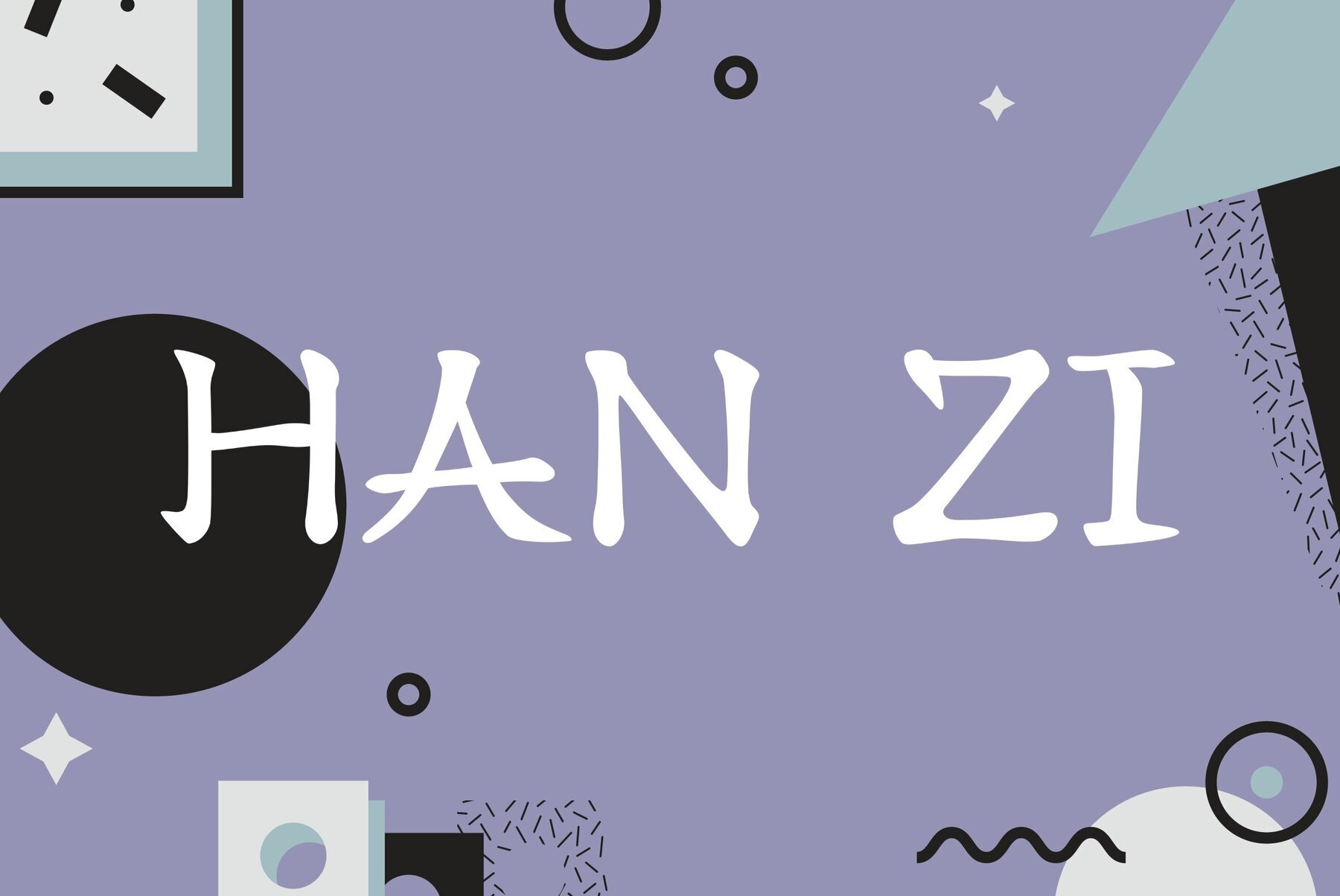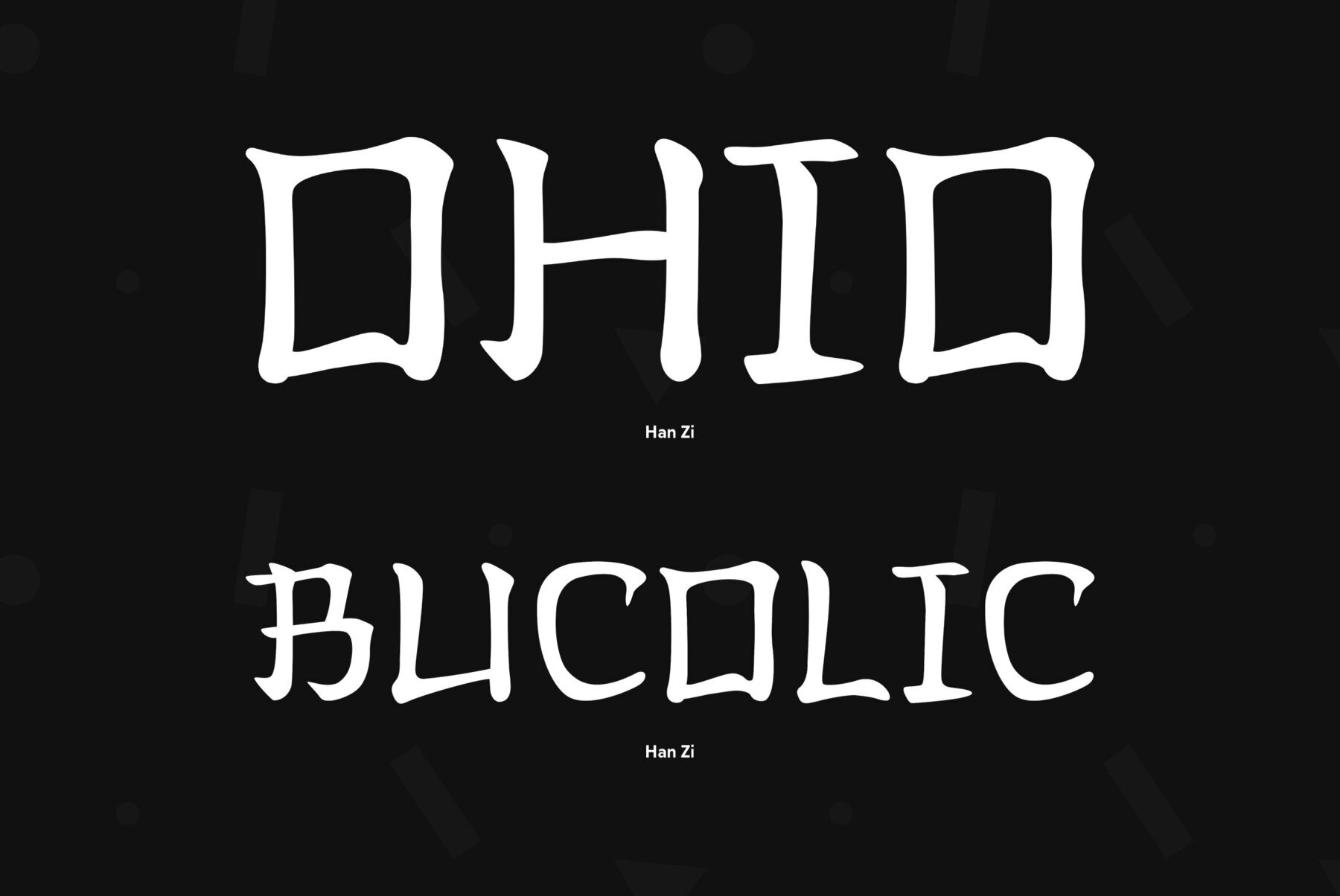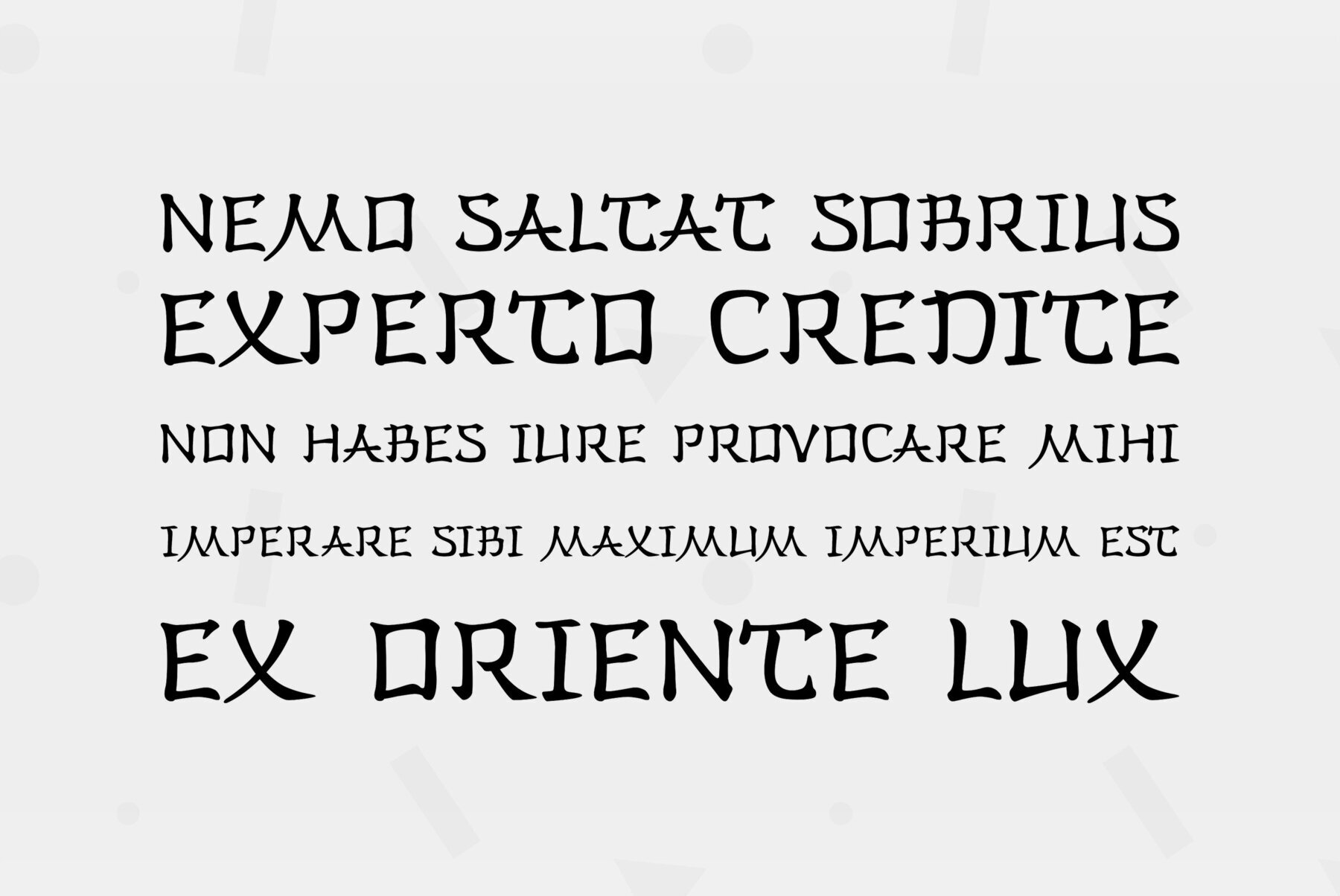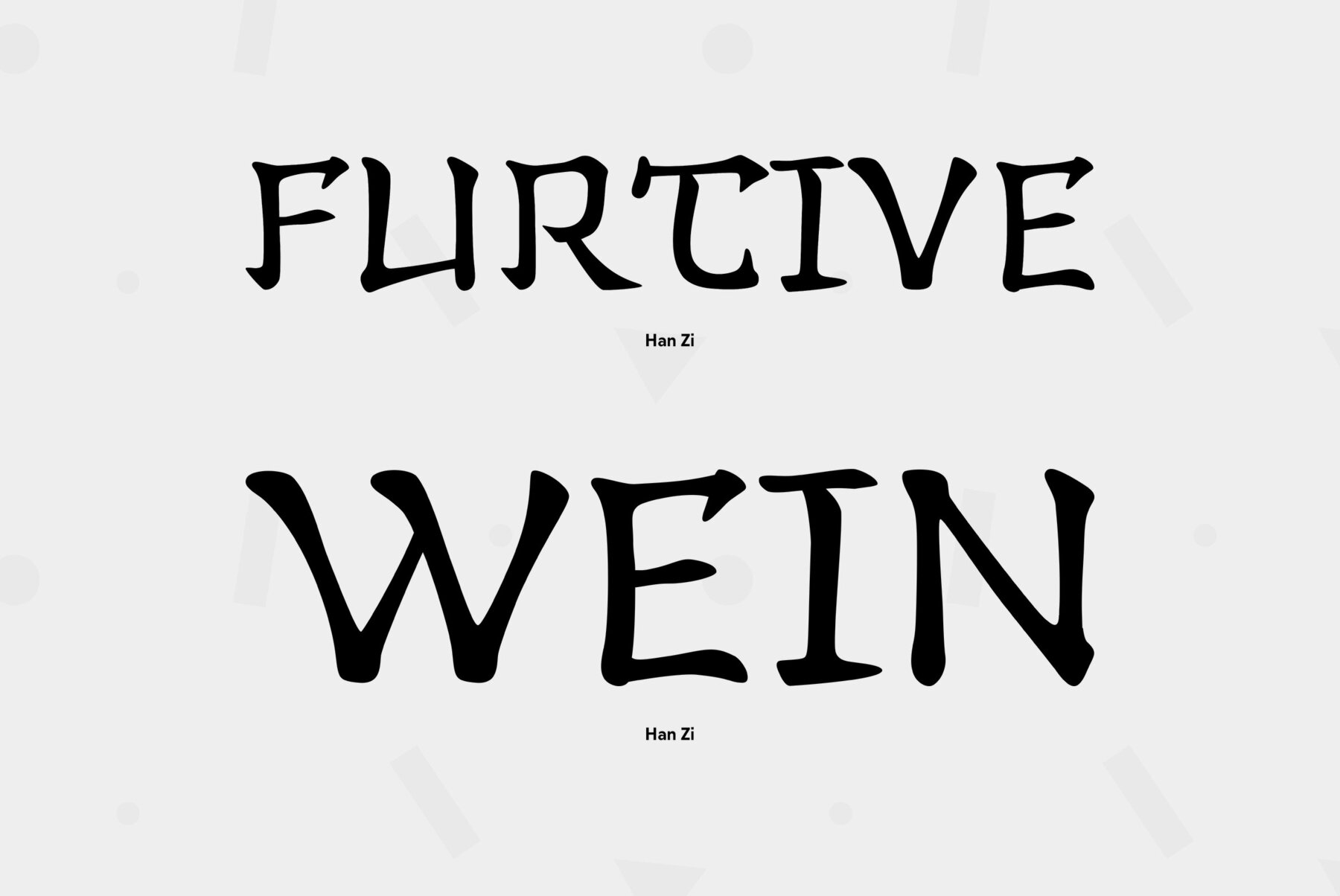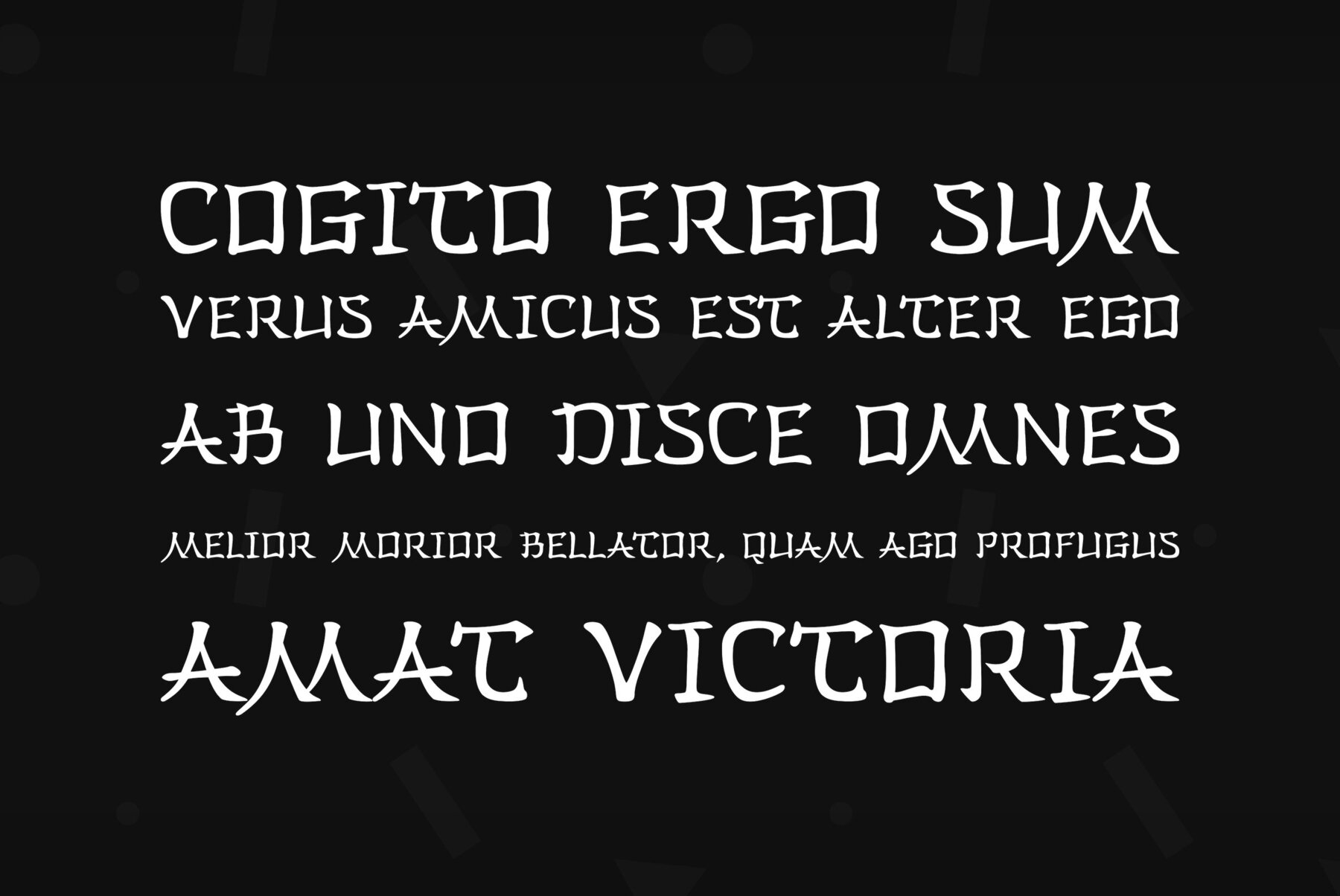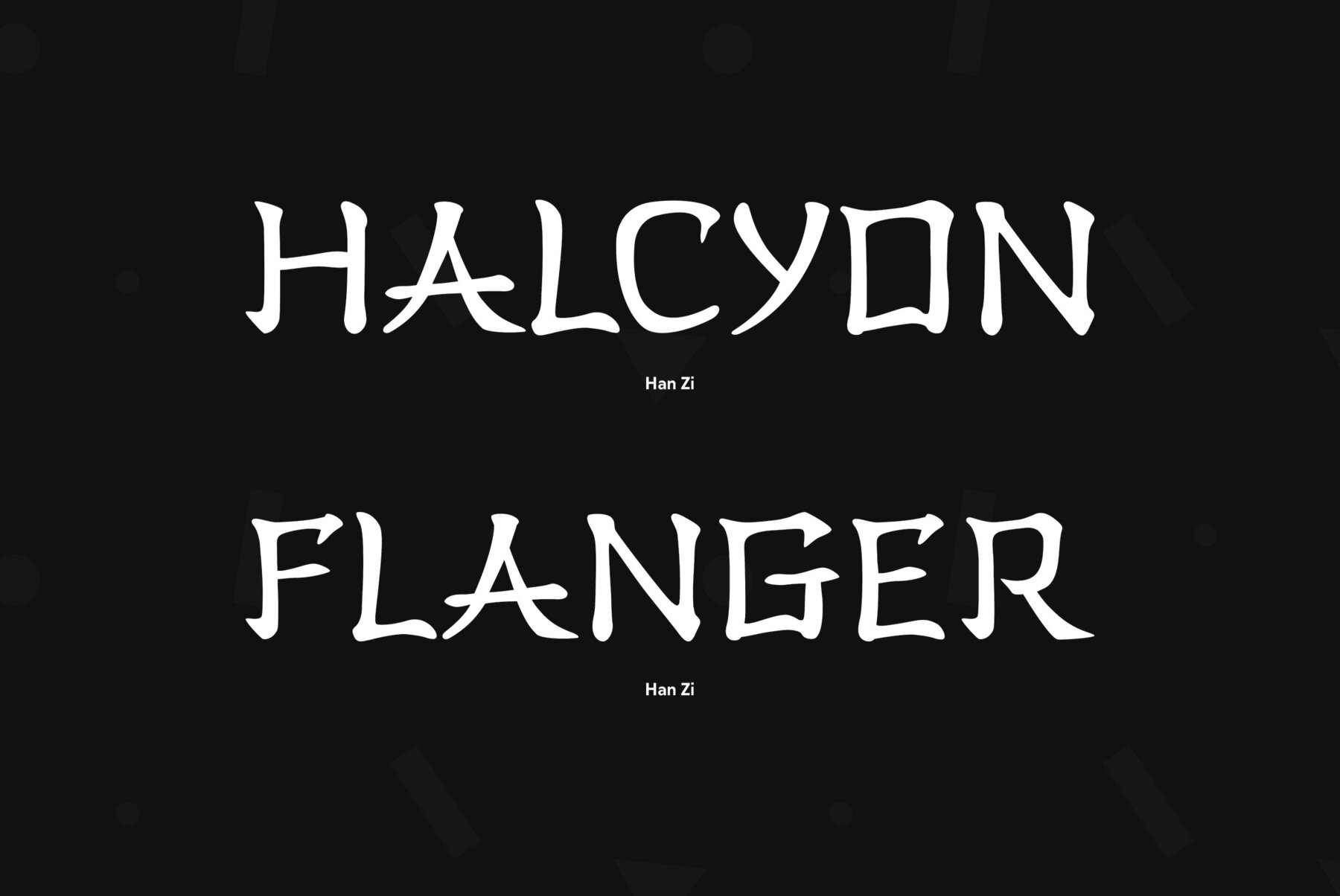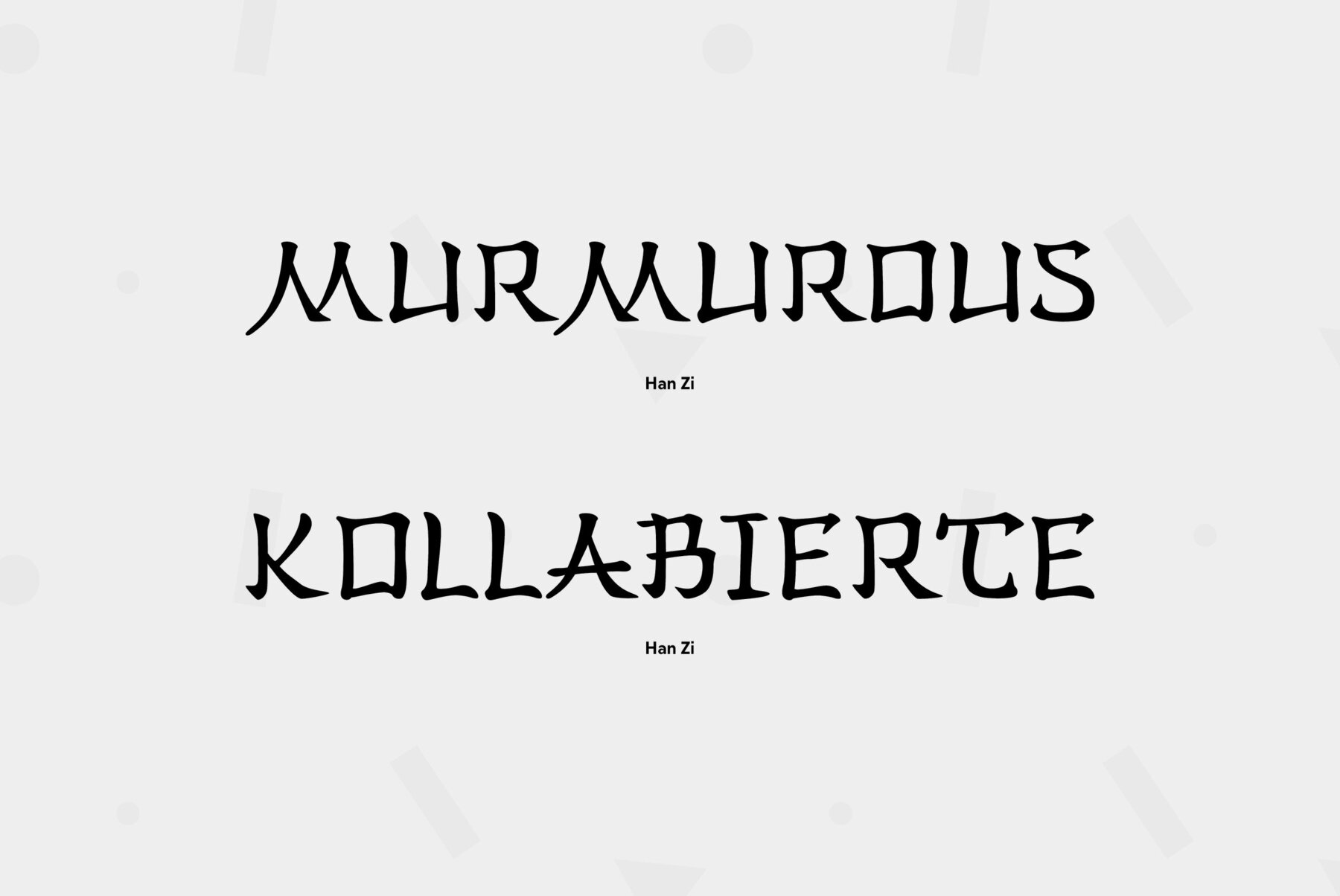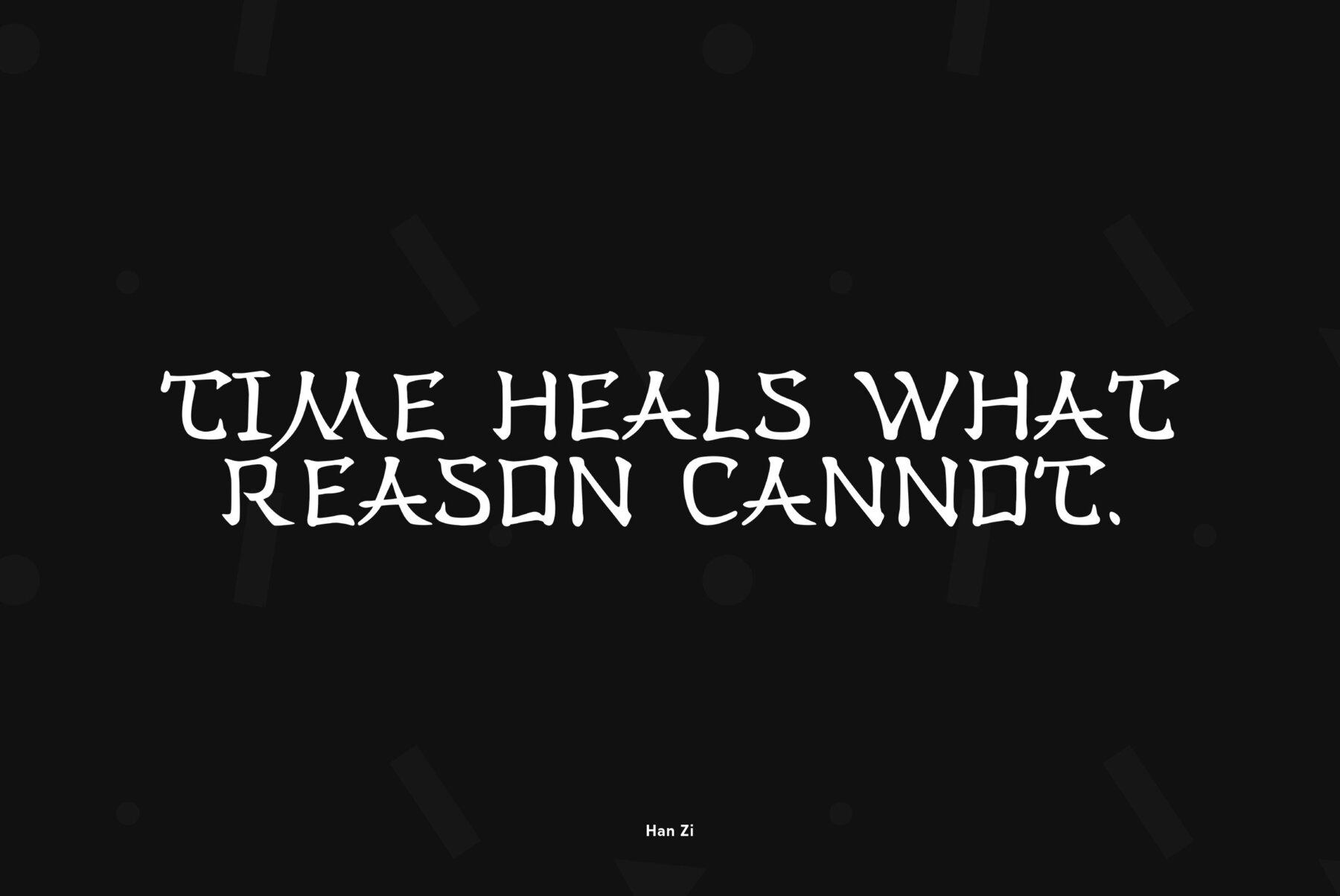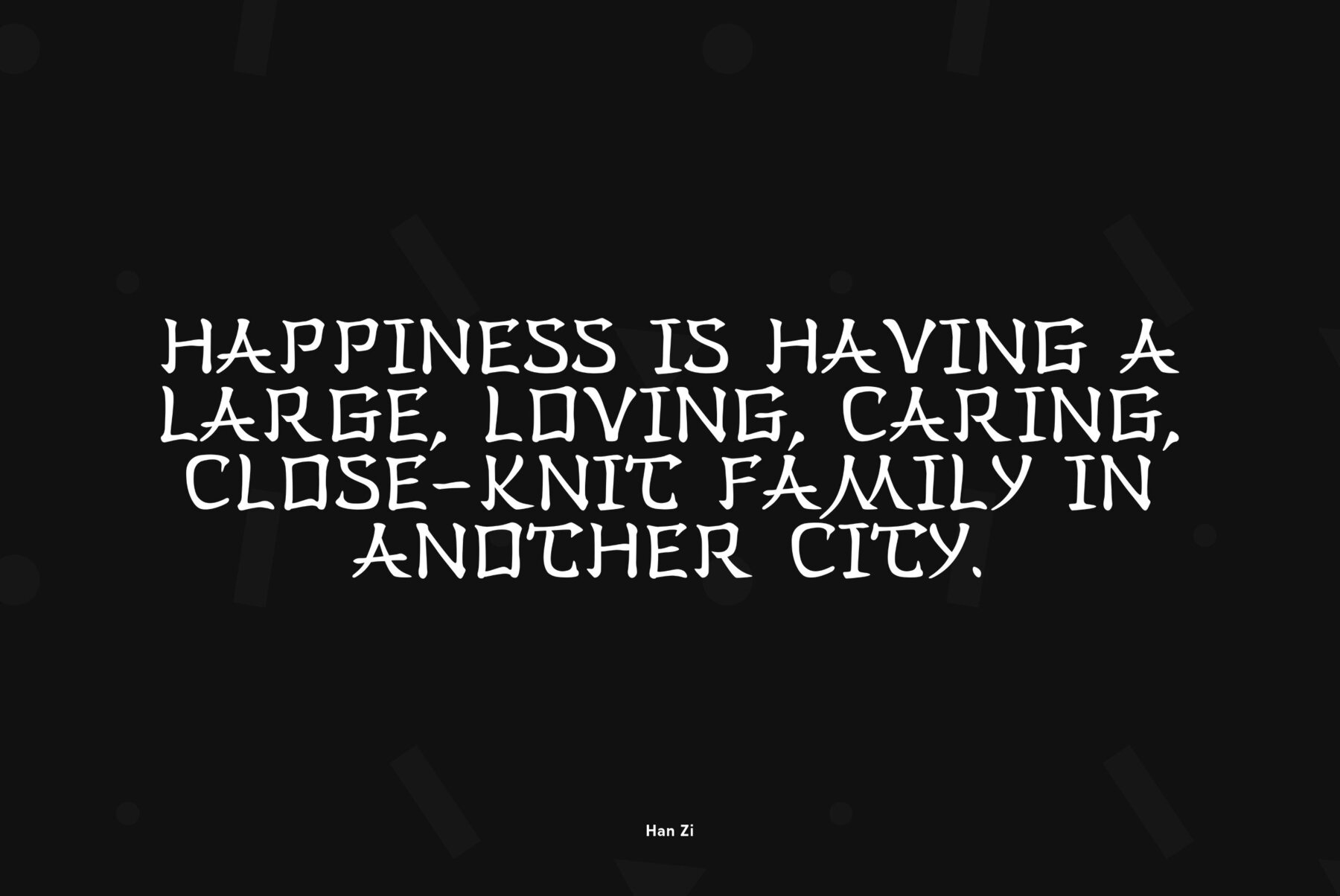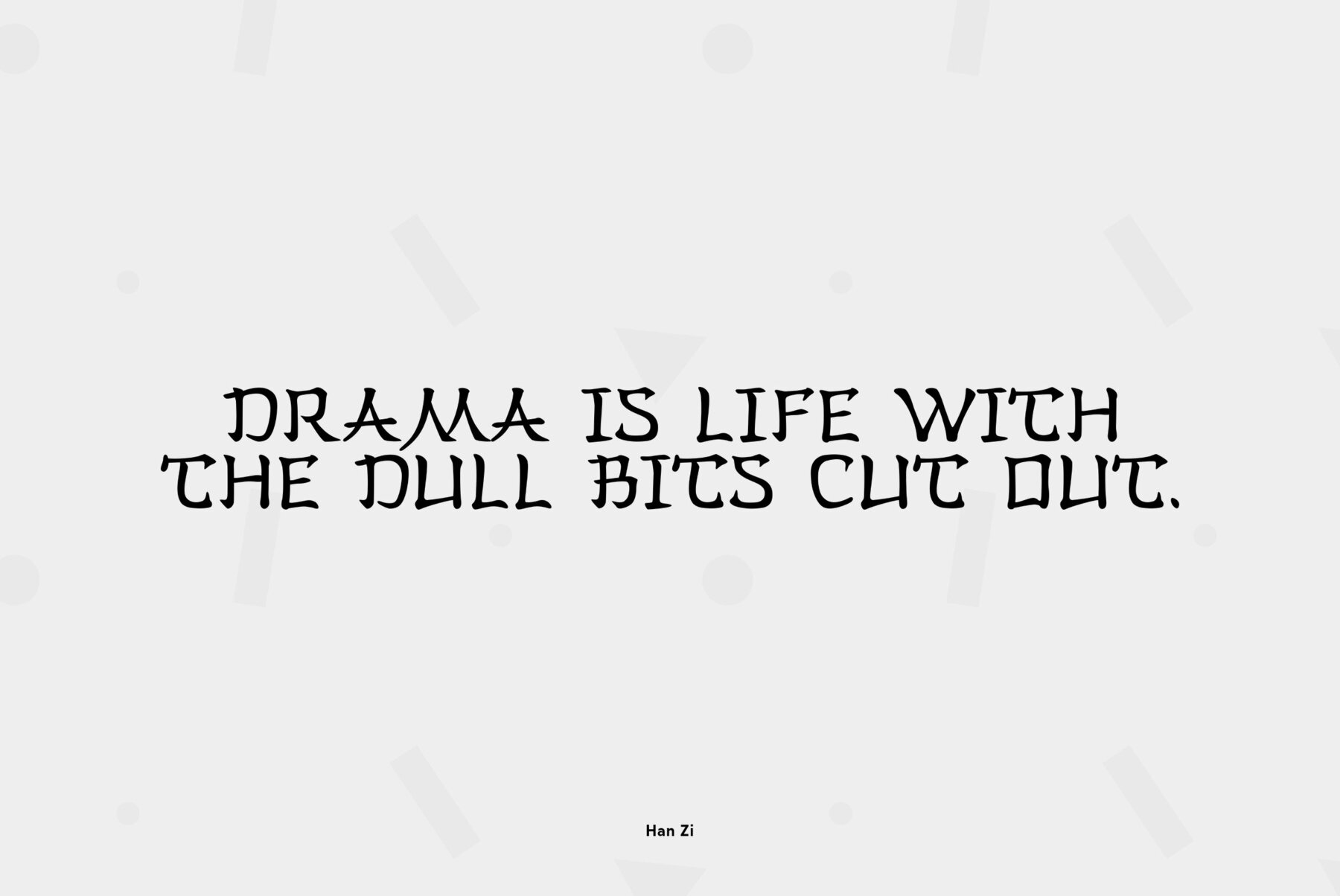
Han Zi Font
Han Zi
The display typeface that is based on the shapes of traditional Chinese hieroglyphic characters. Designing the font for imitations in the Chinese style the author nevertheless demonstrates serious attitude and thoroughness using the table of keys of the regular Kaishu script. As a result the font looks stylistically authentic and genuine. The typeface was designed by Aleksandra Egorova, the young type designer from St. Petersburg, and released by ParaType in 2008